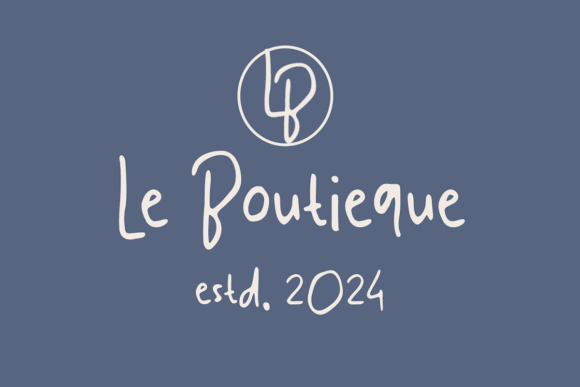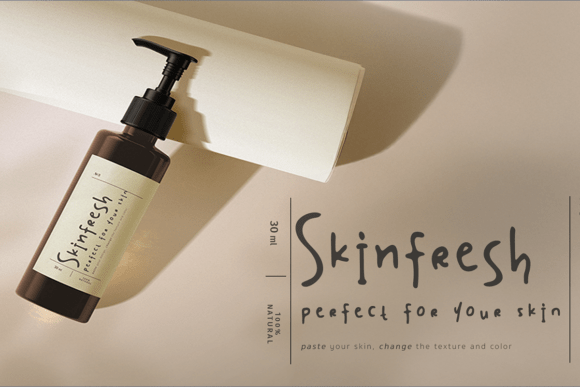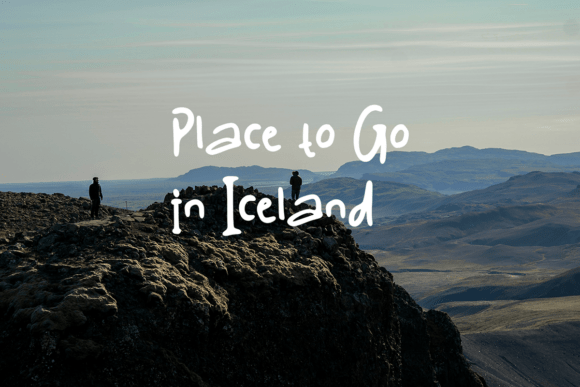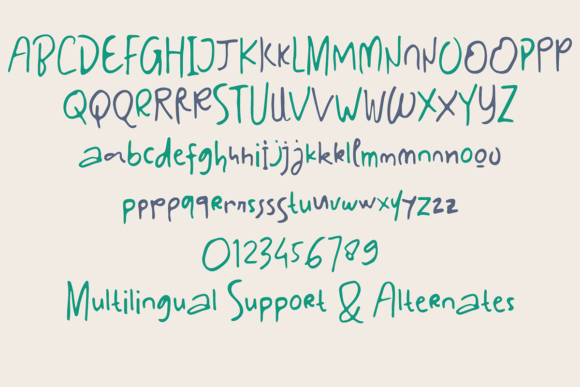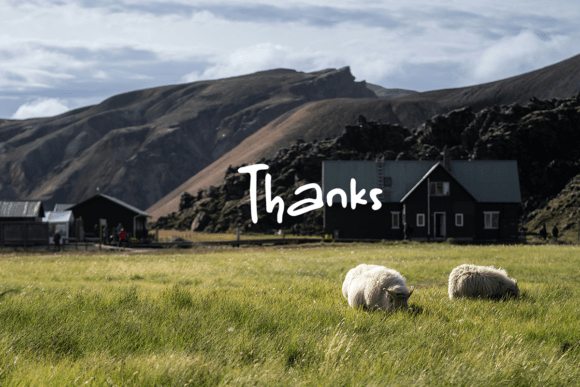
Introduction to Noteable Font
Have you ever been scrolling through your favorite social media platform and come across a beautifully designed quote that caught your eye? The handwritten font used in that post was probably the Noteable Font, a cool and funny handwritten font that adds a natural touch to any design project. As a designer, you’re always on the lookout for that perfect design resource to elevate your creative project, and the Noteable Font is definitely a valuable addition to your toolkit.
With its high-quality, handwritten feel, the Noteable Font is perfect for adding a personal touch to your social media posts, whether it’s a quote on Instagram, a Pinterest pin, or a TikTok Tok video. And the best part? You can download it for free, giving you complete creative freedom to use it in your projects. Plus, with a transparent background, you can easily layer it over any image or video, making it a versatile design element that’s sure to enhance your creative project.
Key Features of Noteable Font
- High-quality, professional design for creative projects, making it a valuable design resource.
- Unique, modern style with a transparent background, allowing for seamless integration into any design.
- Includes a comprehensive set of glyphs, including international characters and symbols.
Honest Review: Noteable Font
As a designer, I’m always on the lookout for high-quality design resources to elevate my creative projects. Recently, I stumbled upon Noteable Font, and I’m excited to share my honest review with you.
What works well about Noteable Font is its versatility and wide range of applications. The font is available for free download, making it an excellent choice for designers working on a budget or for personal projects. The transparent background also allows for seamless integration with various design elements, making it a great addition to any creative project.
- ✨ High-quality design with a modern and sleek aesthetic
- ✨ Wide range of applications, from logos to typography
However, I do have a few limitations to mention. The font family is relatively small, and some users may find the limited options restrictive. Additionally, the font may not be suitable for complex typography or large-scale designs.
- ⚠️ Limited font family options
- ⚠️ May not be suitable for complex typography or large-scale designs
Overall, I’m impressed with Noteable Font’s potential and its ability to add a touch of sophistication to any design project. While it may have its limitations, it’s a solid choice for designers looking for a high-quality, free design resource.
Noteable Font is a high-quality design resource that offers a unique and creative font style perfect for any project. With its transparent background, it can be easily integrated into various design platforms.
Noteable Font is perfect for various creative projects such as:
1. Graphic design.
2. Digital marketing materials.
3. Branding and identity.